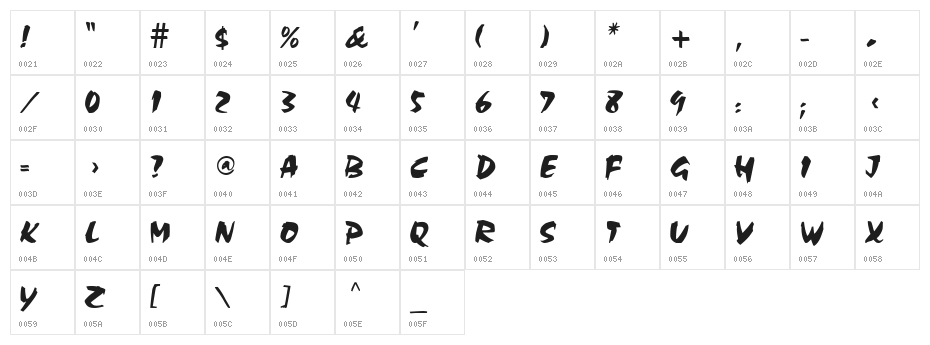
Choc Font
Choc Description
This font features a bold and dynamic brush script style, characterized by its thick, expressive strokes and slightly irregular forms. The uppercase letters are bold and impactful, with a sense of movement and energy, while the lowercase letters maintain a consistent flow, adding a touch of elegance. The numbers and special characters follow the same bold aesthetic, ensuring uniformity across all glyphs. This font is designed to capture attention and convey a sense of creativity and spontaneity, making it ideal for projects that require a strong visual impact.
Proposed ProjectsIdeal for branding, posters, headlines, and creative design projects that require a strong visual impact.